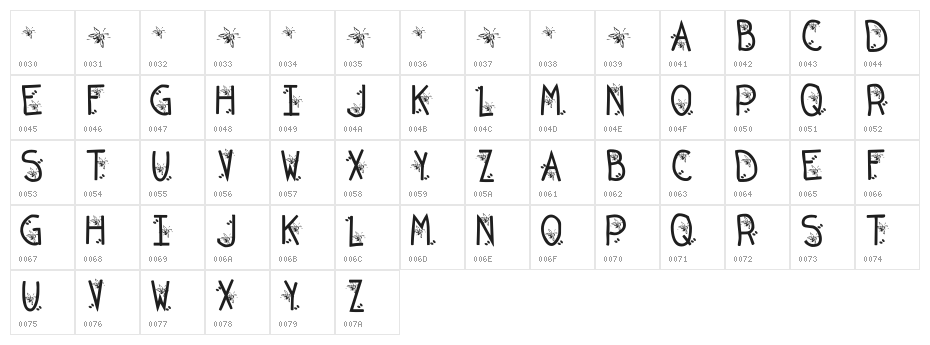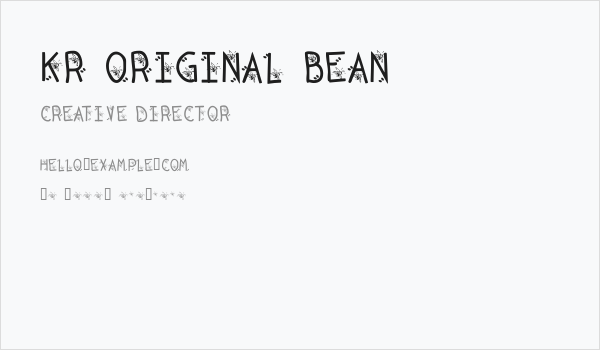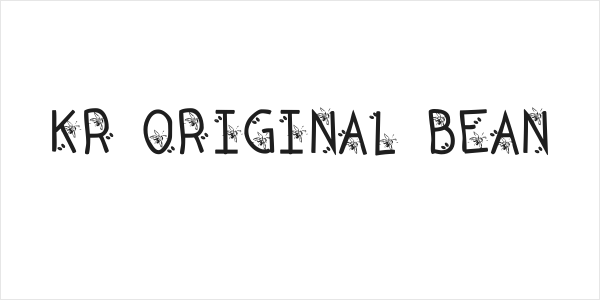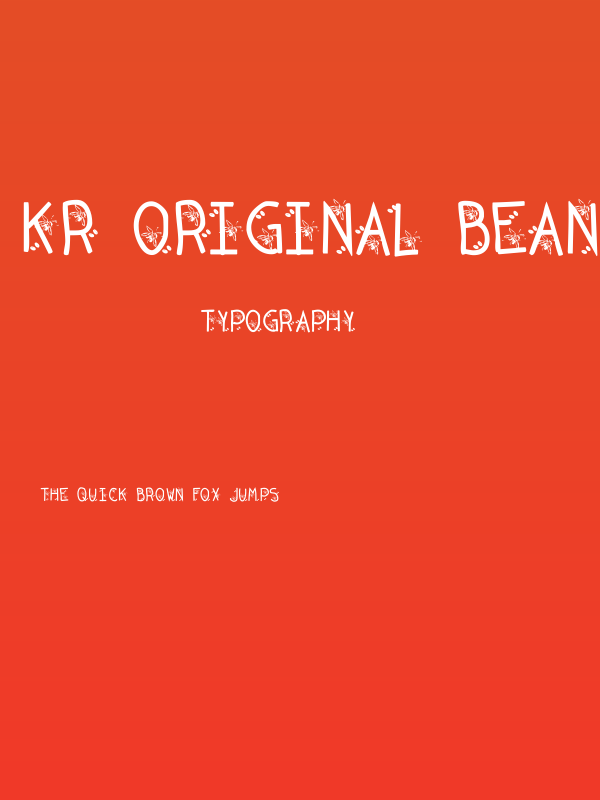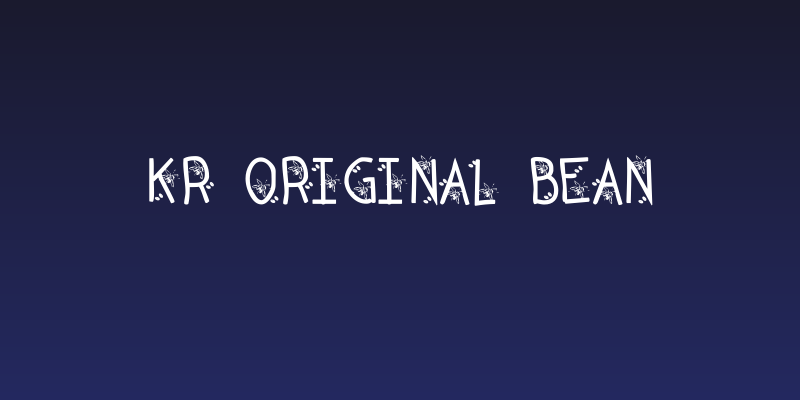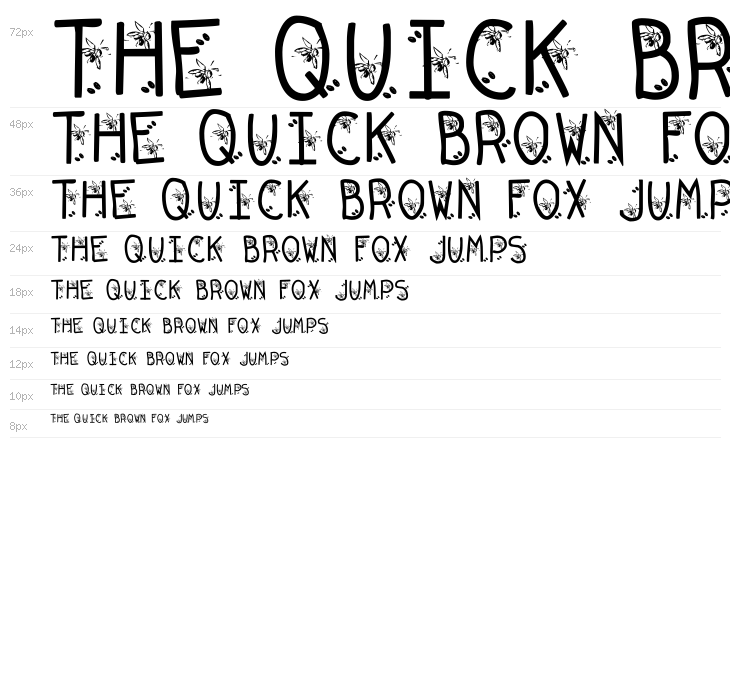
KR Original Bean Font
KR Original Bean Description
This font features a playful and whimsical design, incorporating small bee illustrations within the characters. The letters are bold and slightly rounded, with a decorative flair that adds a unique touch to each character. The bees are strategically placed, enhancing the overall aesthetic without overwhelming the readability. This font is ideal for projects that require a fun and engaging visual element, such as children's books, playful branding, or themed event invitations. The combination of bold strokes and intricate details makes it stand out, while maintaining a sense of harmony and balance.
Proposed ProjectsIdeal for children's books, playful branding, themed event invitations, and creative posters.